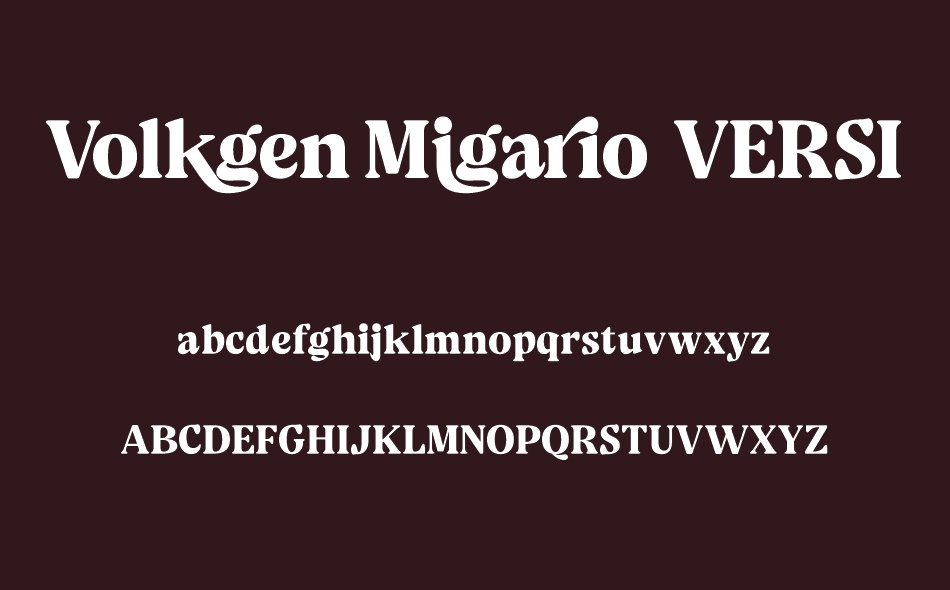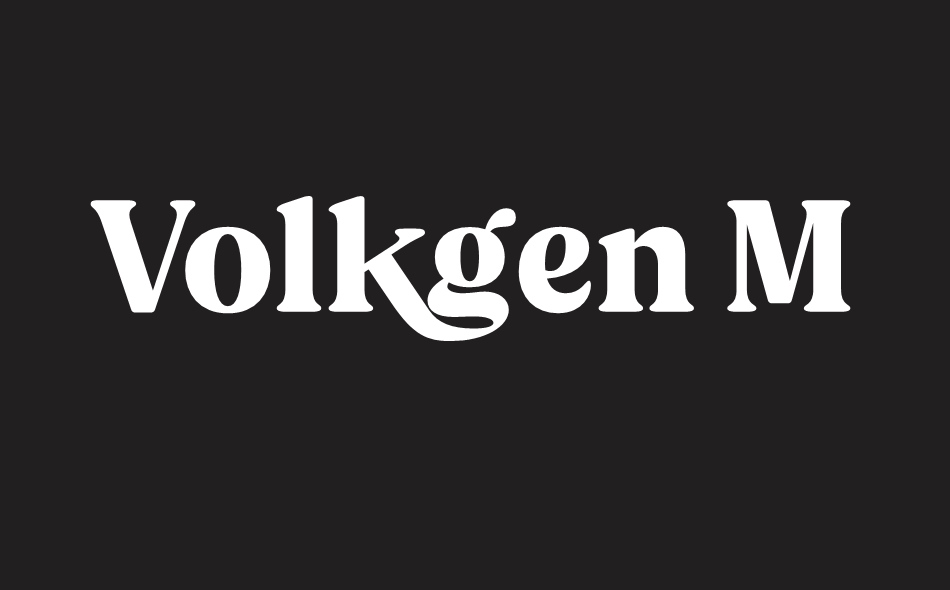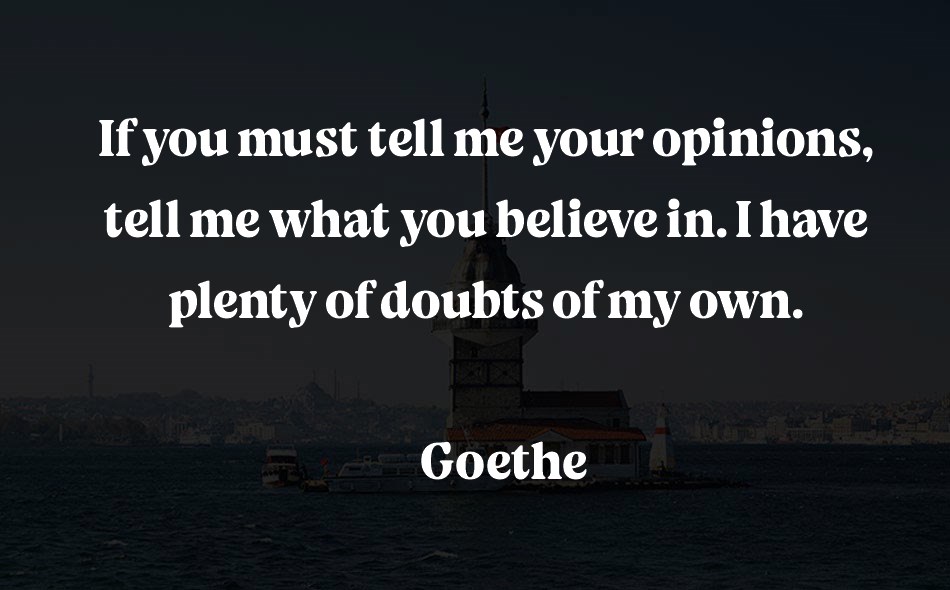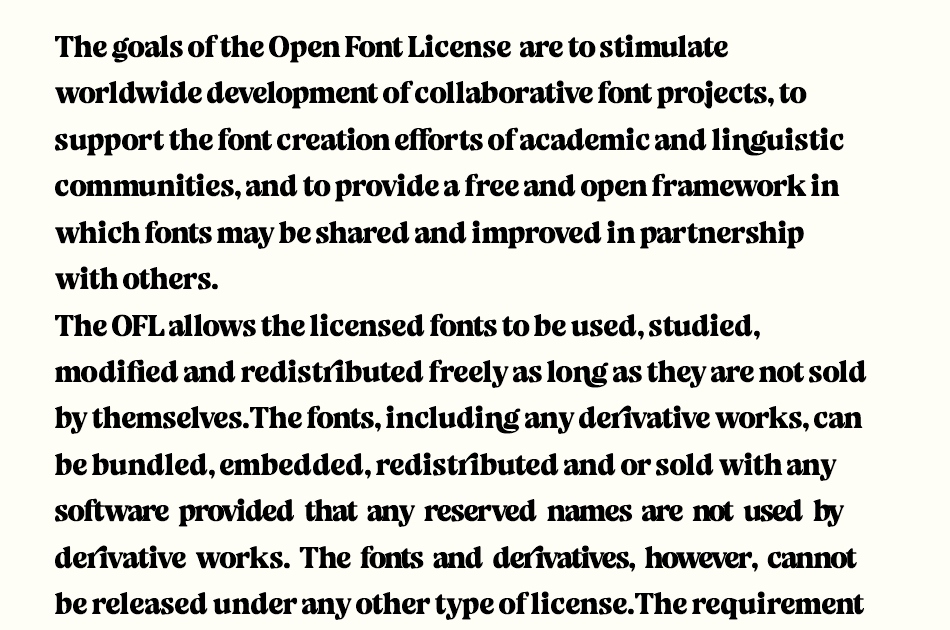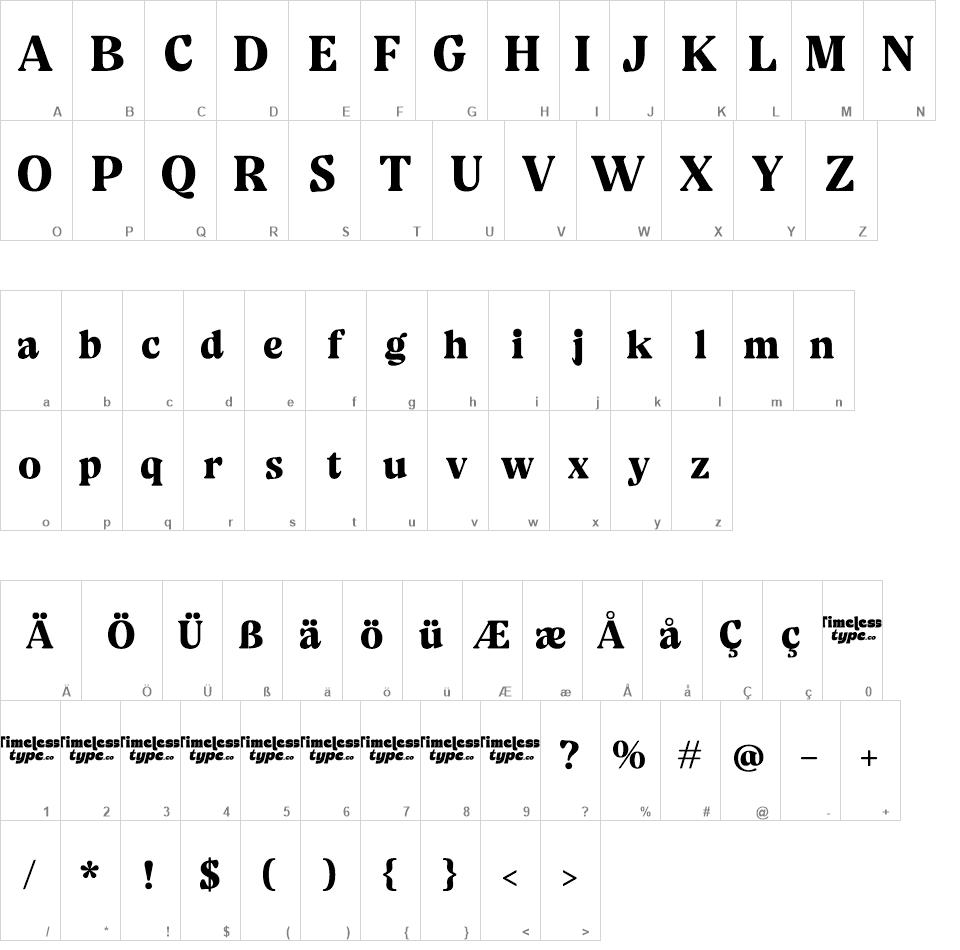
Volkgen Migario font
Volkgen Migario - Bold Serif Display Font
Command attention immediately with the powerful presence of Volkgen Migario - Bold Serif Display Font. This typeface masterfully blends retro elegance with modern typographic sensibility, delivering a striking aesthetic that refuses to be ignored. Characterized by its substantial weight and smooth, exaggerated serifs, it provides an immediate sense of confidence and establishment. This is the ultimate tool for designers seeking a truly memorable visual identity that pops off the page with vintage flair and unmistakable gravity.
Unlock unparalleled creative versatility through the rich set of alternates and ligatures included in this package. Volkgen Migario - Bold Serif Display Font is engineered for the discerning professional, offering dozens of stylistic choices that allow for sophisticated customization and enhanced typographic flow. These features ensure that headlines maintain a polished, bespoke appearance, dramatically improving the visual texture and readability of high-impact titles, logos, and advertising slogans.
Elevate your brand narrative to the highest standard of sophistication. Volkgen Migario - Bold Serif Display Font is perfectly suited for luxury branding, exclusive product packaging, high-fashion editorial spreads, and powerful music album artwork. Its bold, unforgettable form creates a premium visual anchor, making it ideal for any project requiring a distinct voice and enduring stylistic impact across both digital and physical media.
Ensure global reach and seamless integration wherever your design takes you. With its extensive multilingual support, Volkgen Migario - Bold Serif Display Font adapts seamlessly across global markets, making it incredibly versatile for international projects. Invest in this essential display asset to instantly imbue your work with the gravitational pull and timeless quality of true typographic mastery.